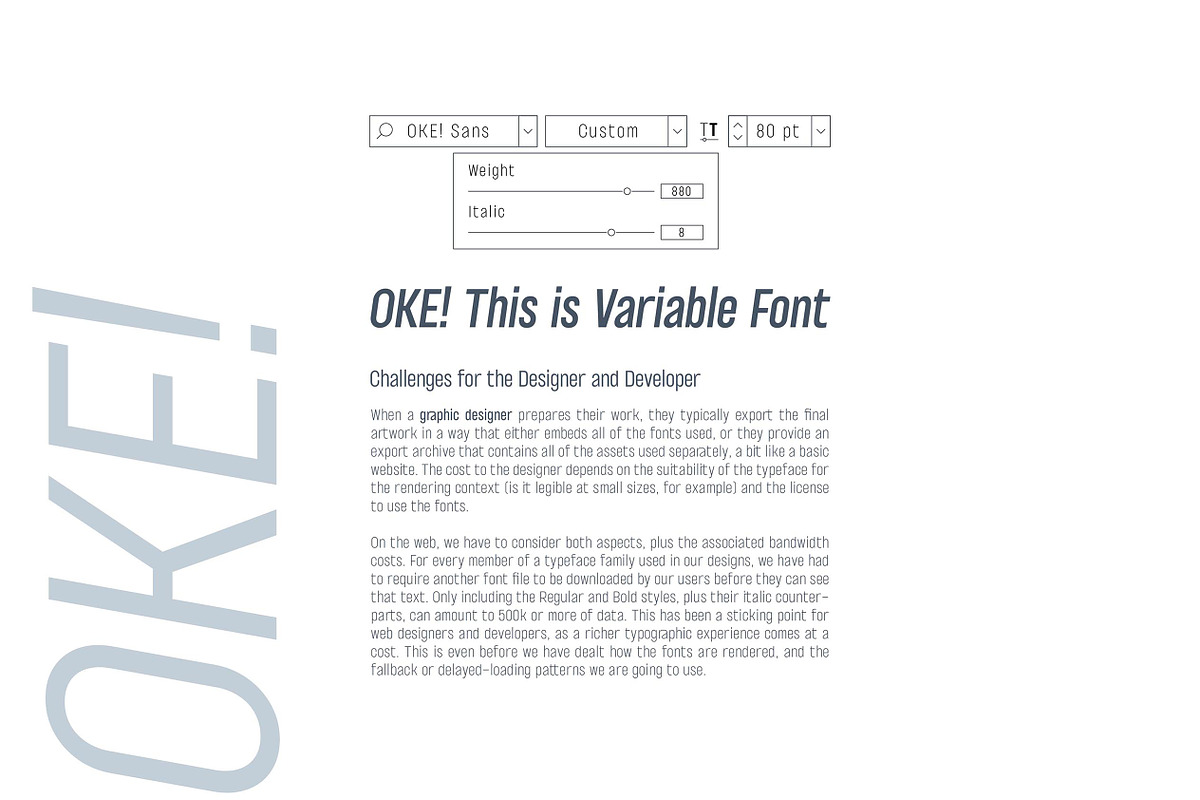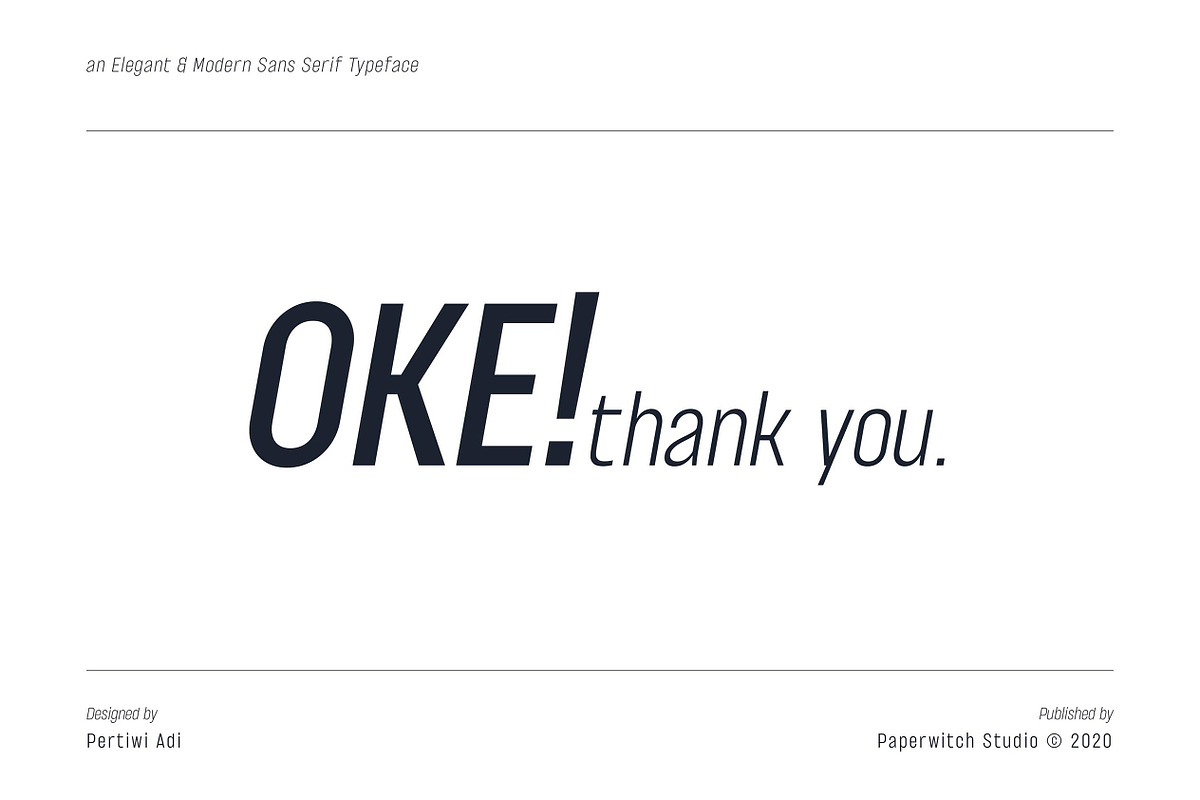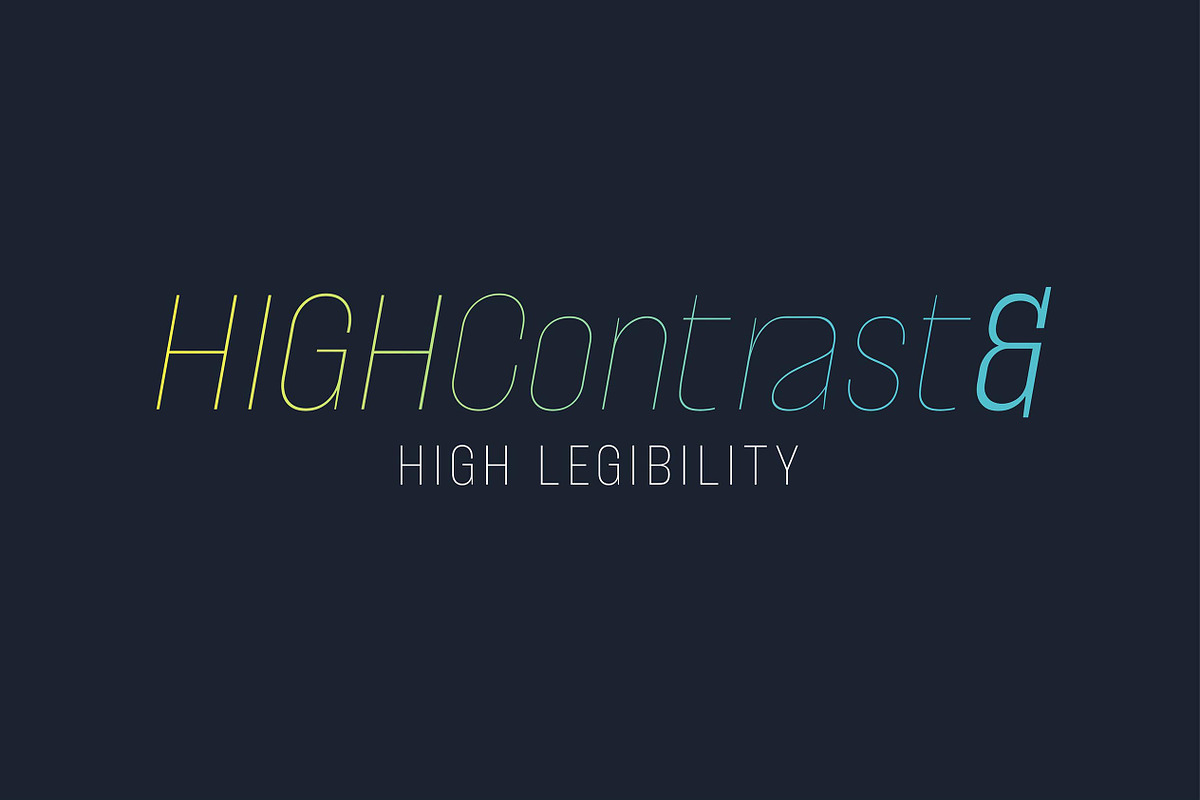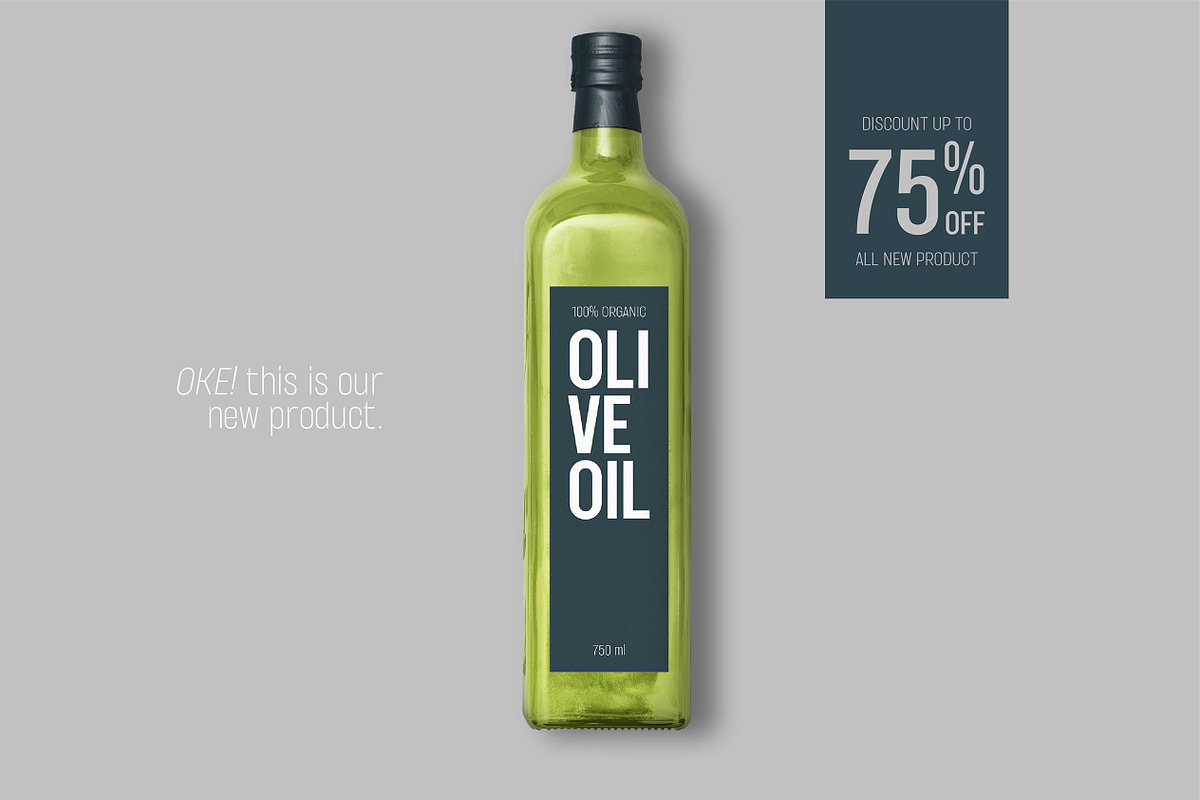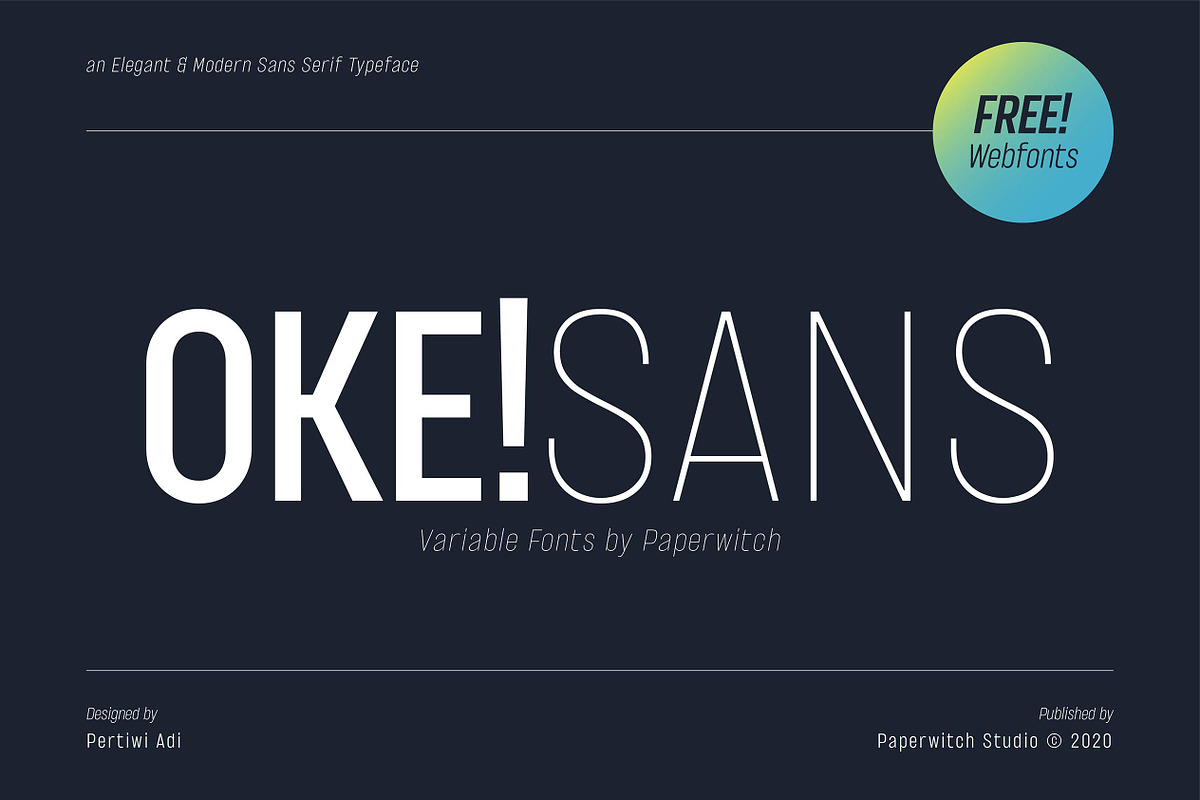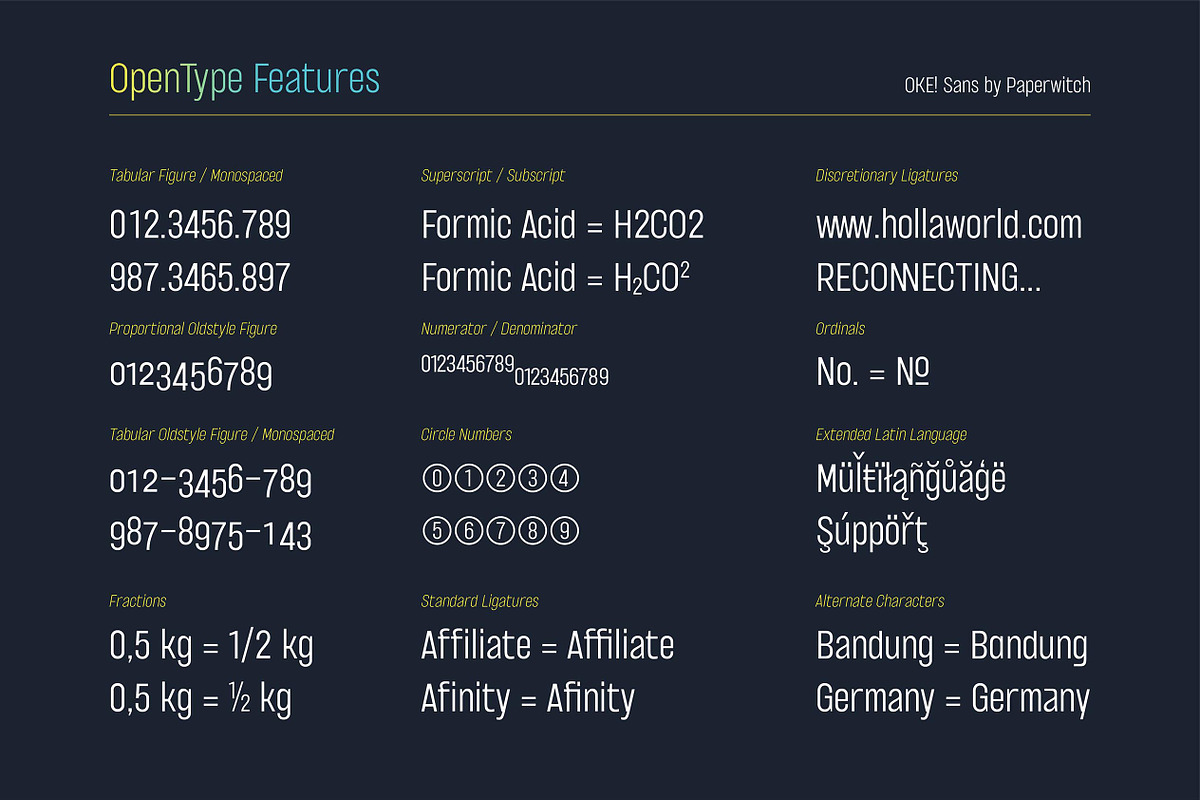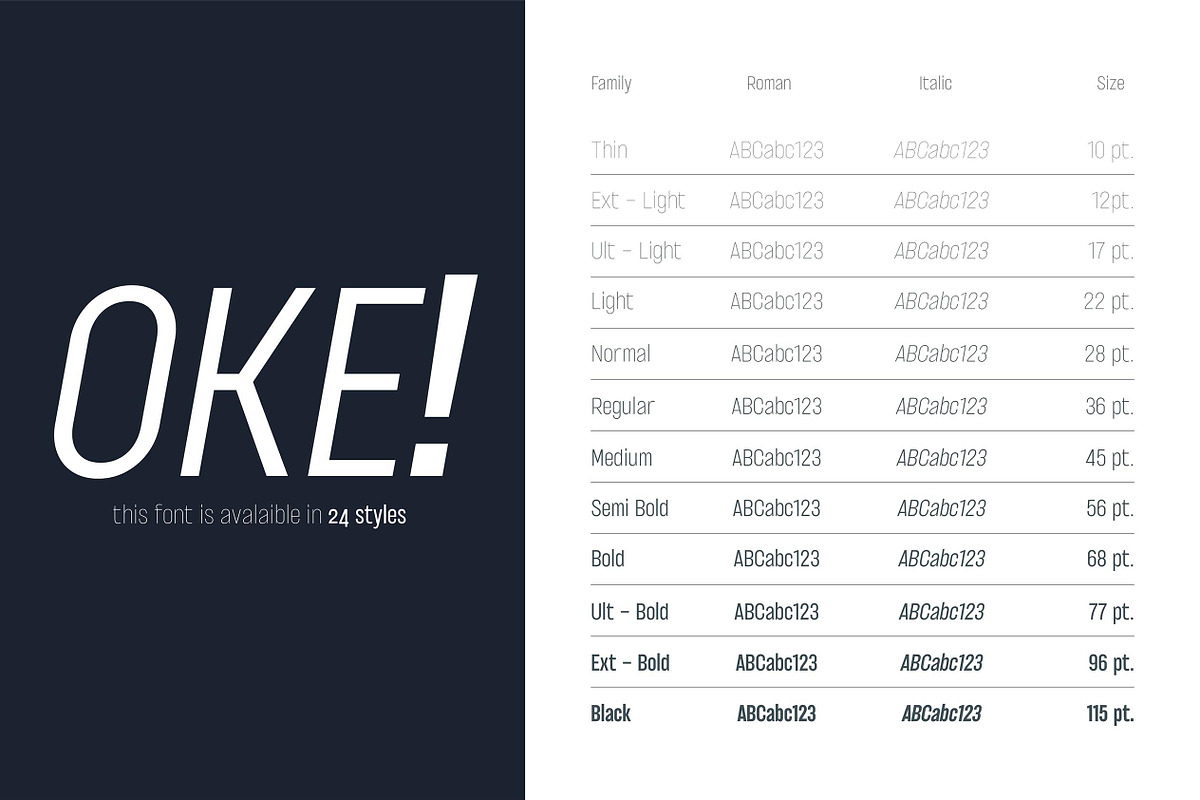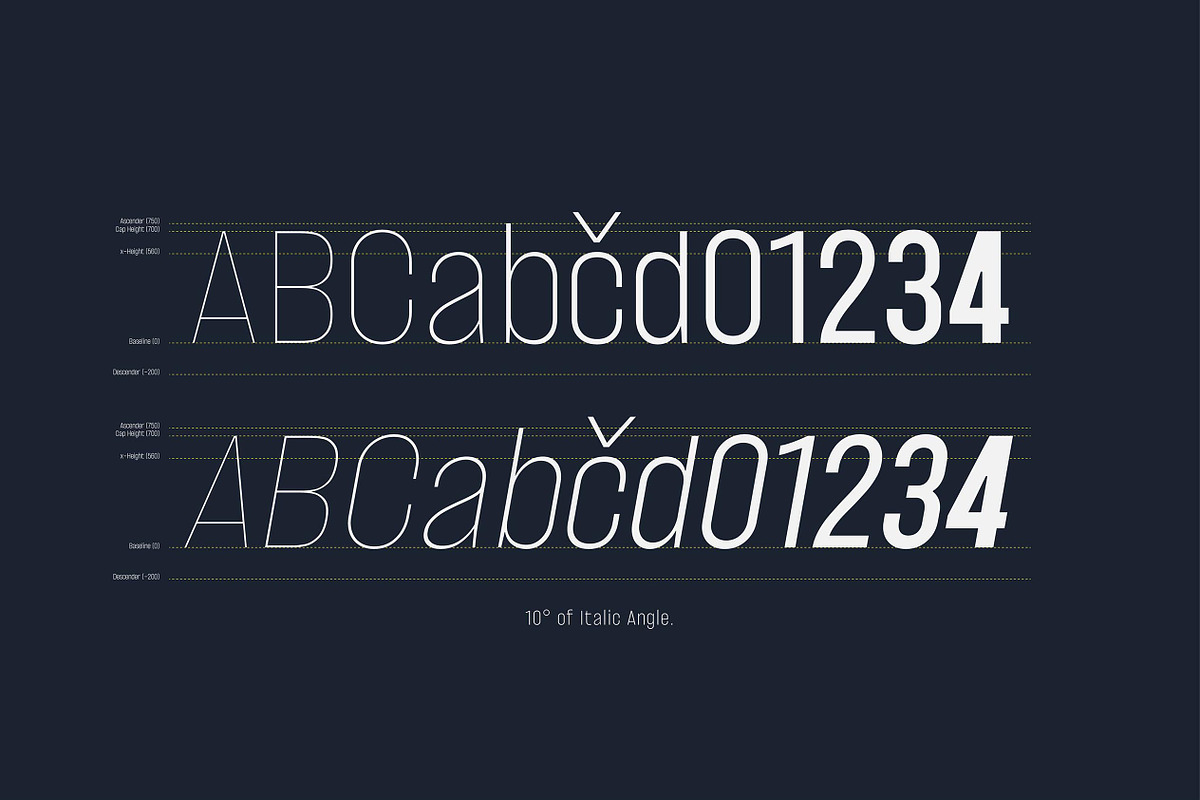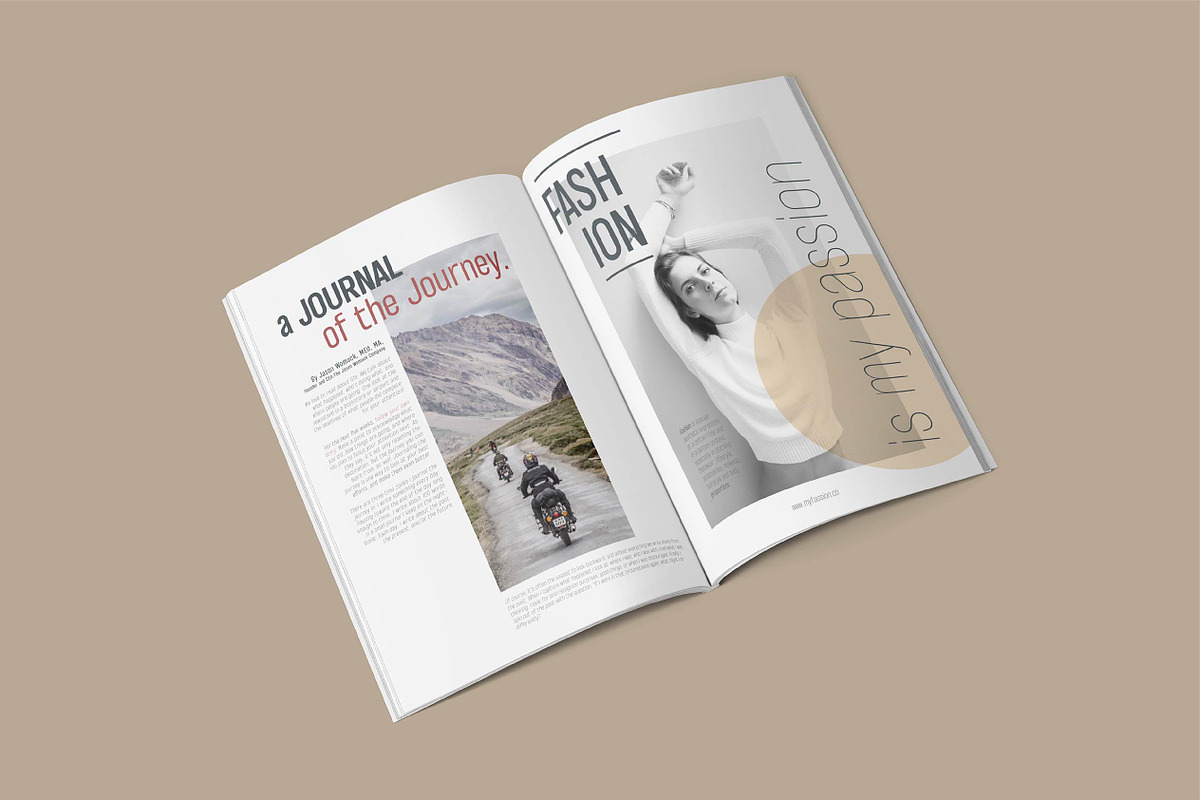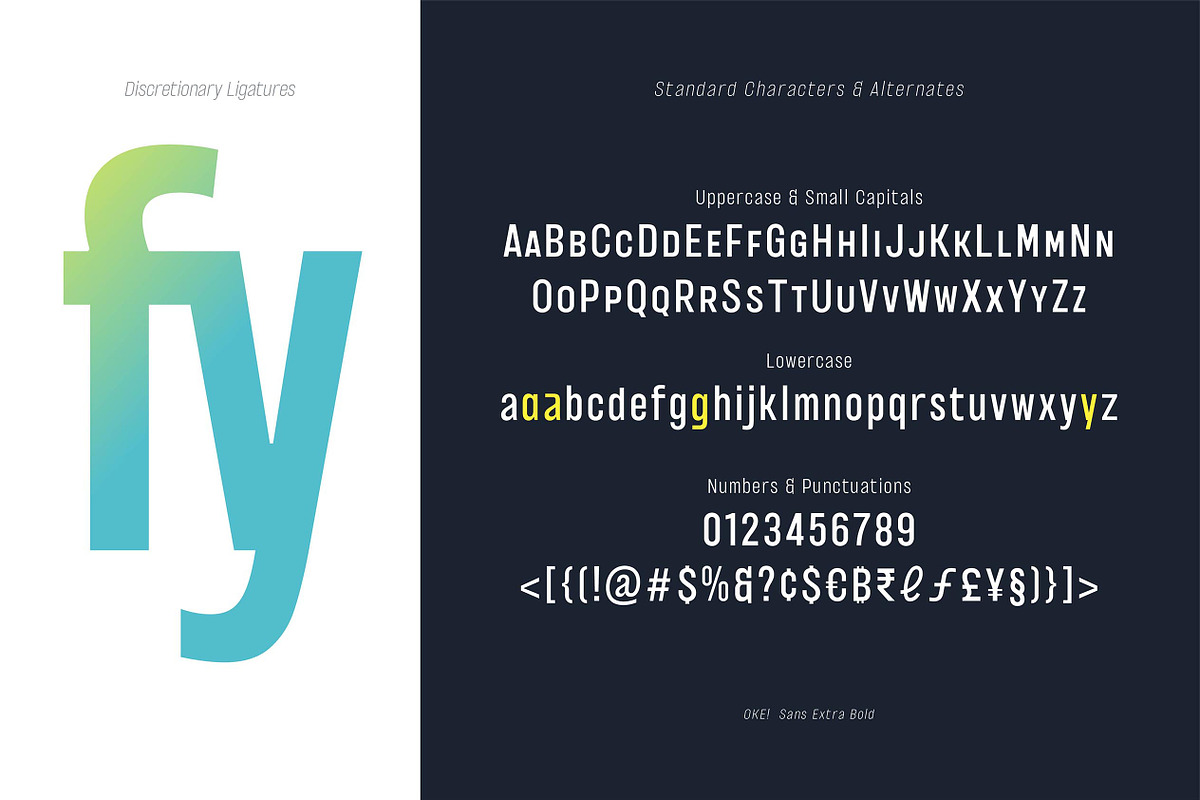
OKE! Sans
OKE!SANS is a variable font. This font has a strong character, so it can be used for design that requires high readability. Posters, Labels, Book Title, and more, are perfect for using this font.